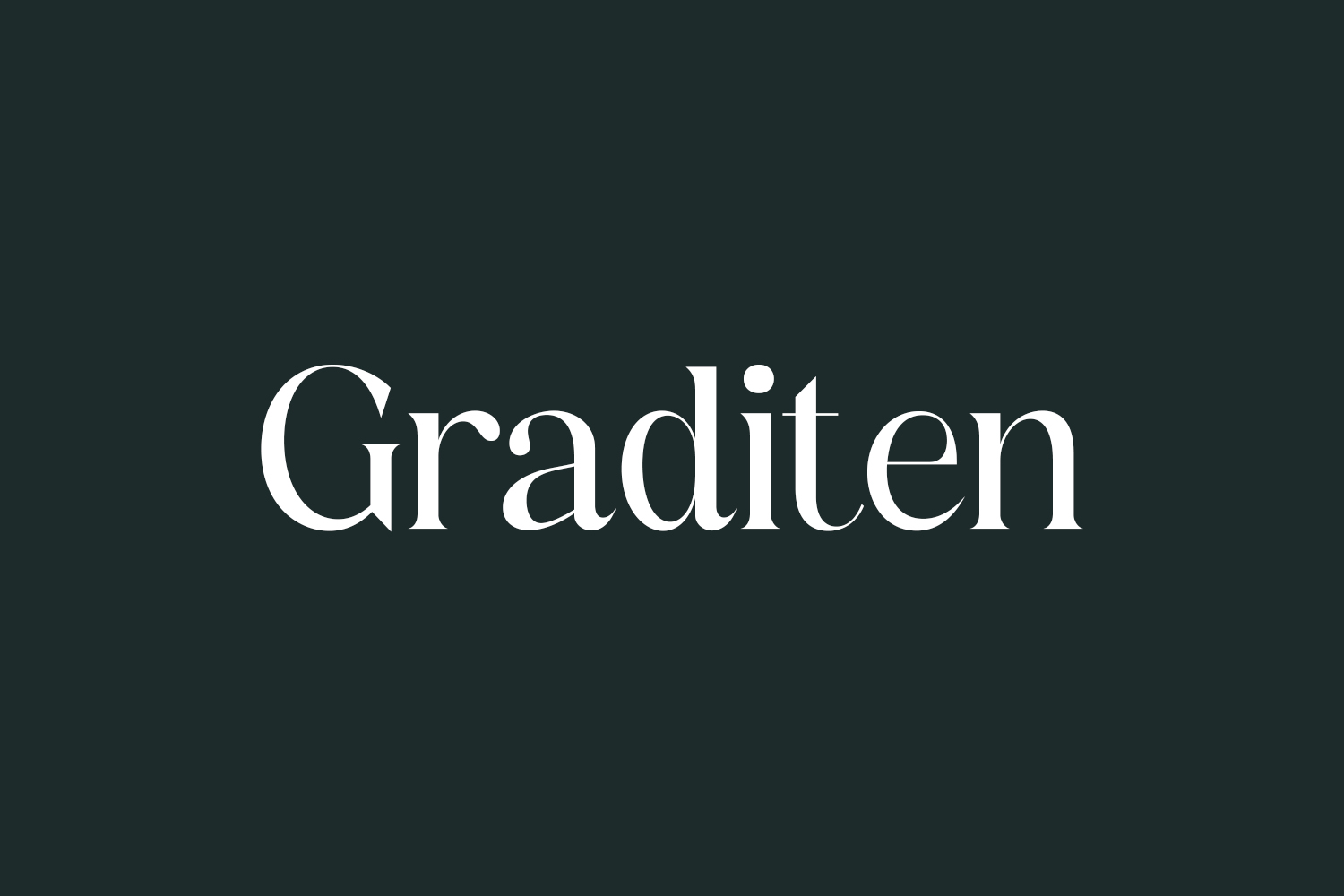
Discover the sophistication of Graditen Free Font, a contemporary and timeless serif font boasting a distinctive style and an exquisite appearance. Ideal for creating elegant and luxurious logos, book or movie titles, fashion brands, magazines, clothing designs, lettering, quotes, and a myriad of other creative applications. Download the font for free if you need it for personal use or purchase the full version for commercial use.